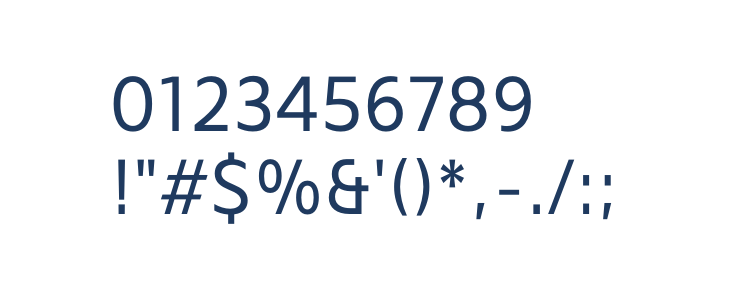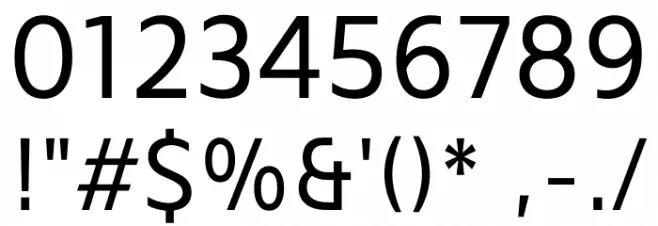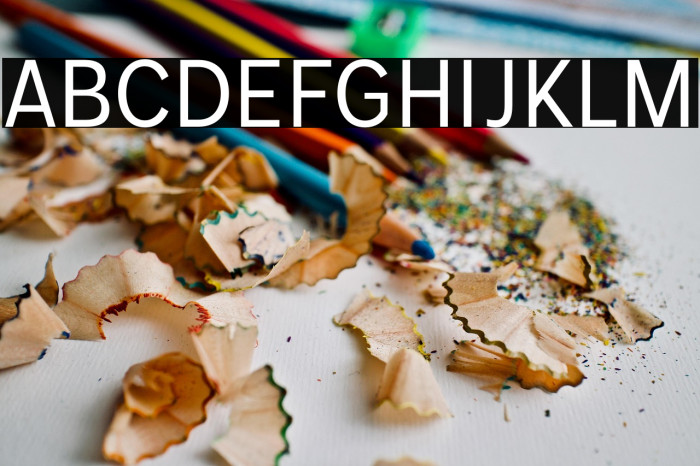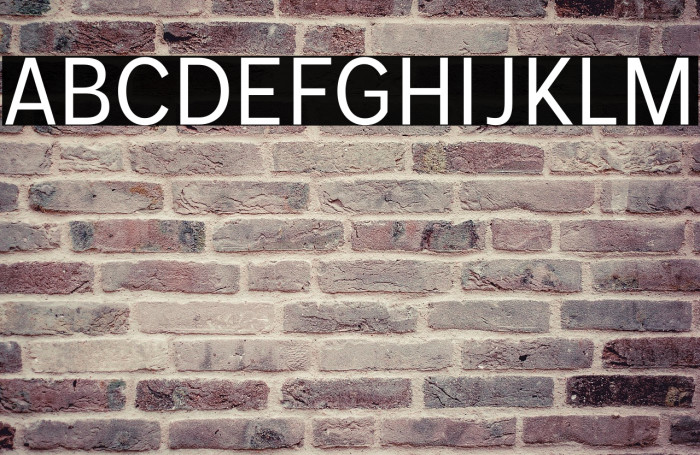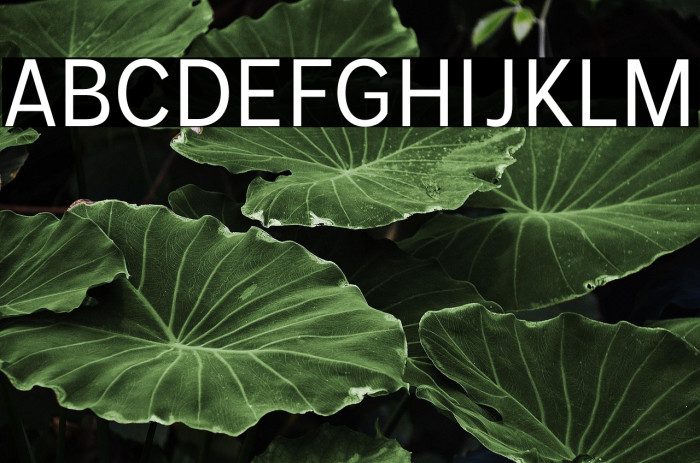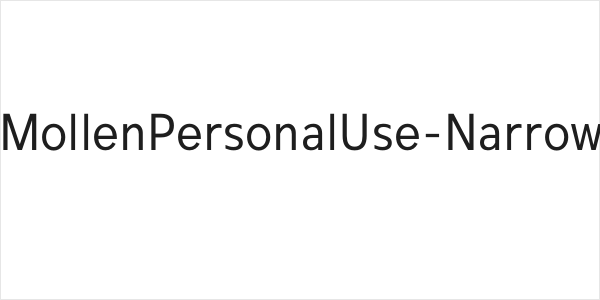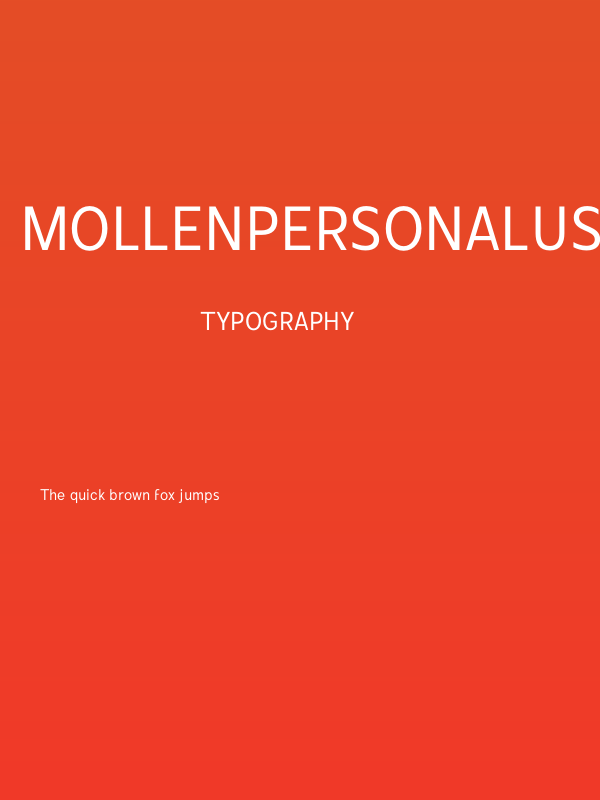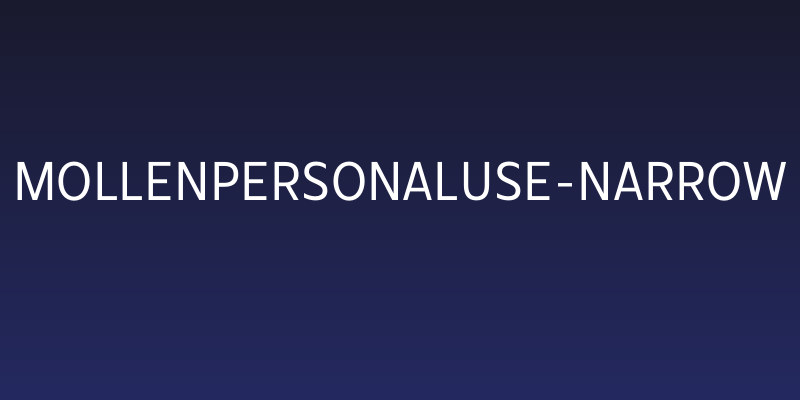
MollenPersonalUse-Narrow Font
MollenPersonalUse-Narrow Description
This font features a clean and modern sans-serif design, characterized by its narrow and uniform stroke width. The letters are well-proportioned, with a consistent height and spacing that enhances readability. The uppercase letters are slightly taller than the lowercase, providing a balanced and professional appearance. The numerals are clear and distinct, making them easily legible. Special characters are designed with simplicity and clarity in mind, ensuring they complement the overall aesthetic. This font is versatile, suitable for both digital and print media, offering a contemporary look that is both functional and stylish.
| Proposed Projects | Ideal for corporate branding, website headers, and editorial design where a modern and professional look is desired. |